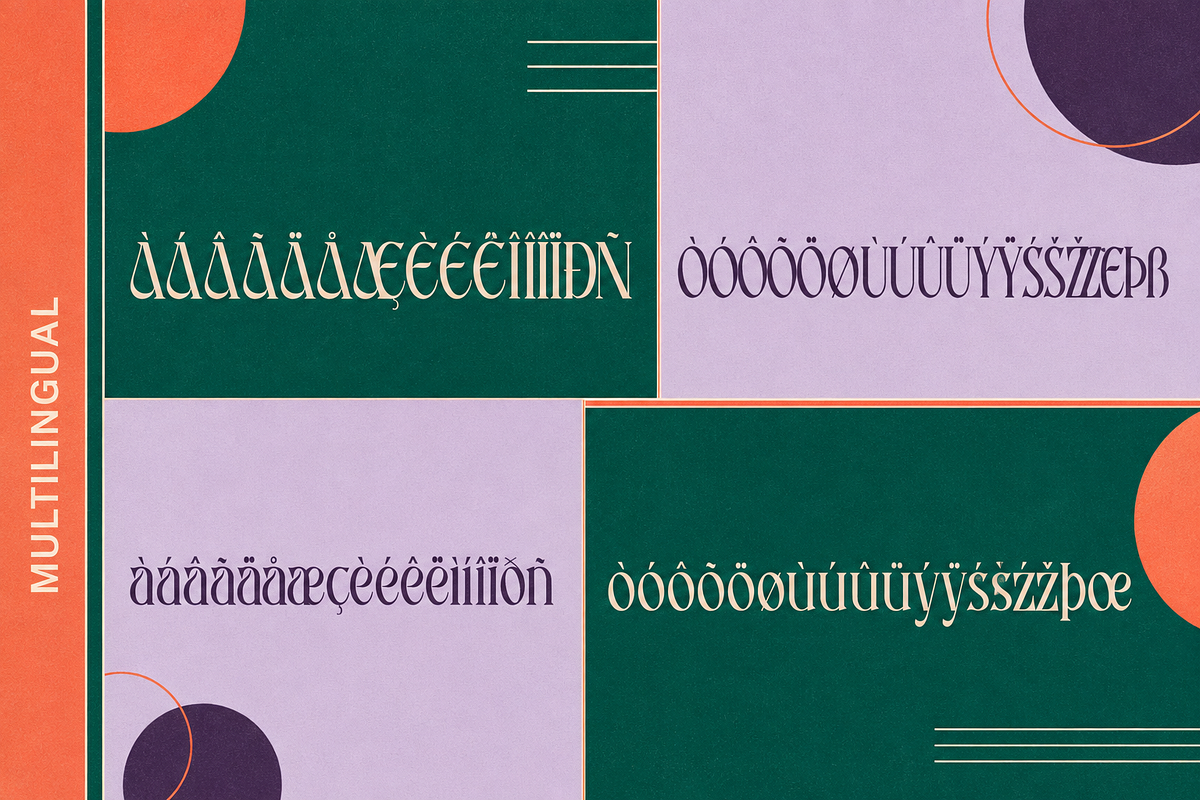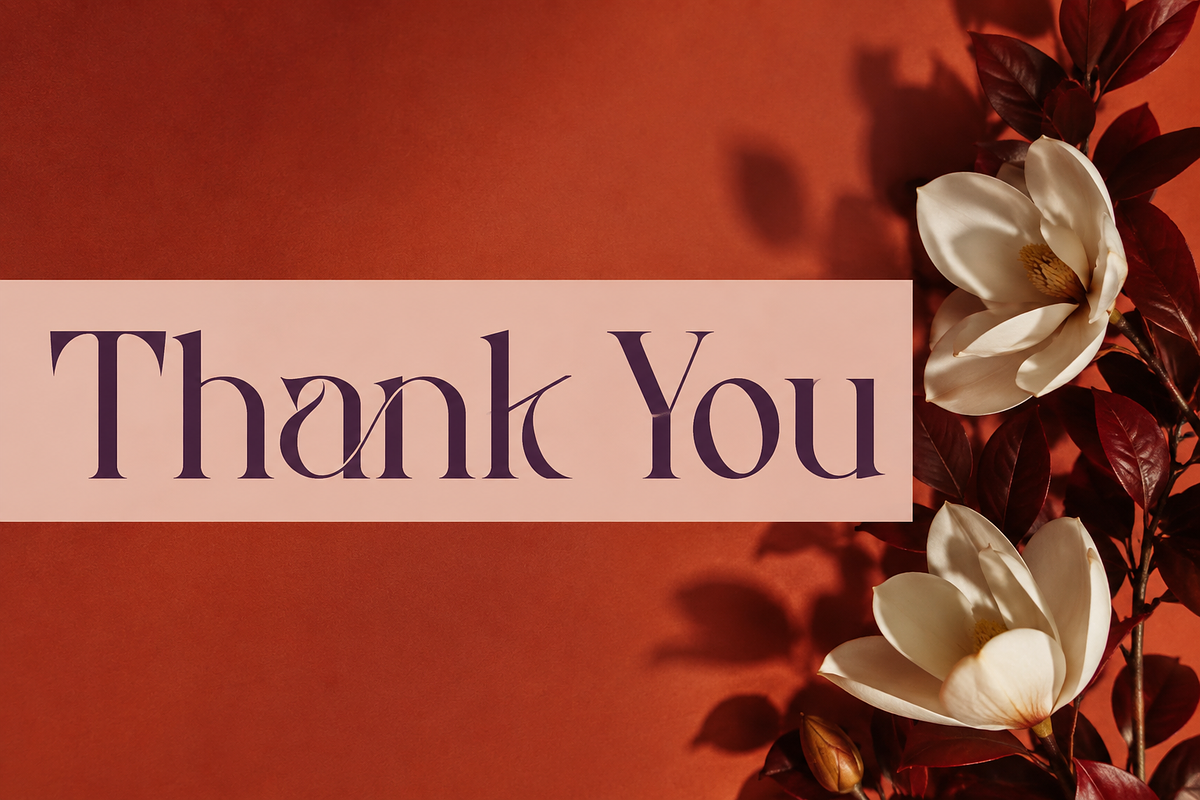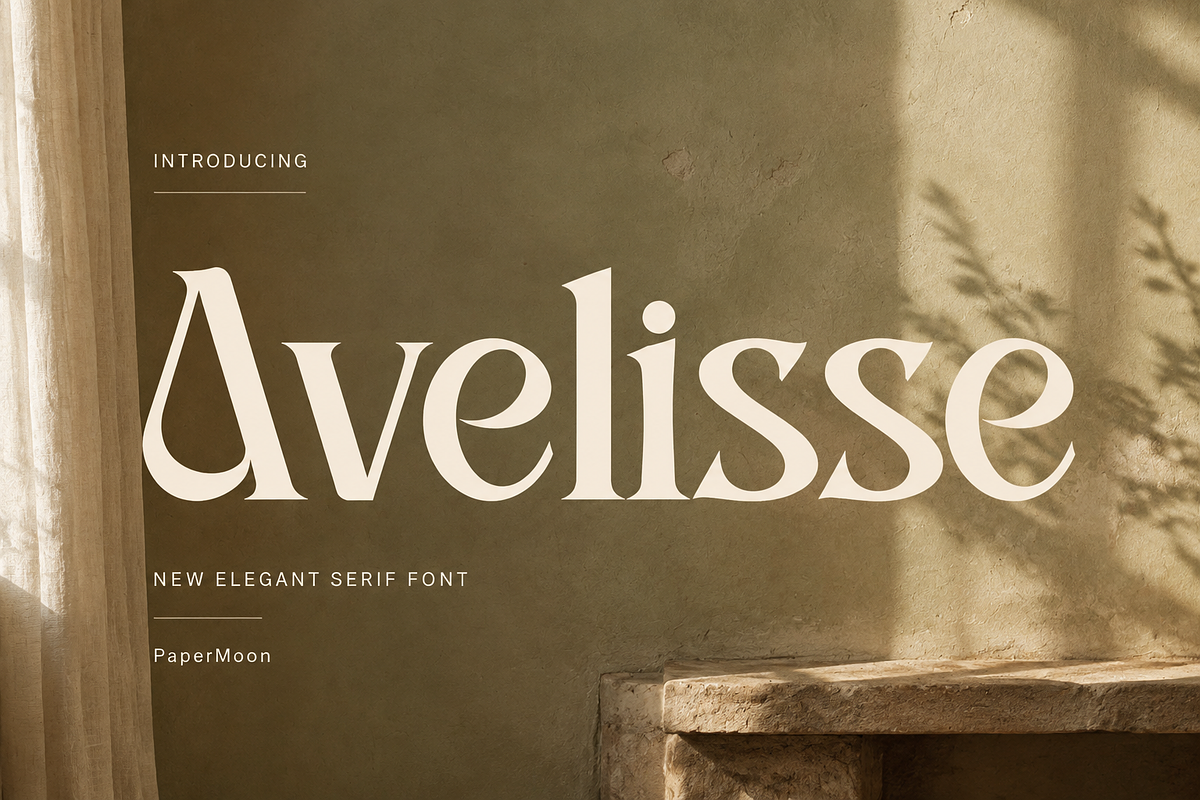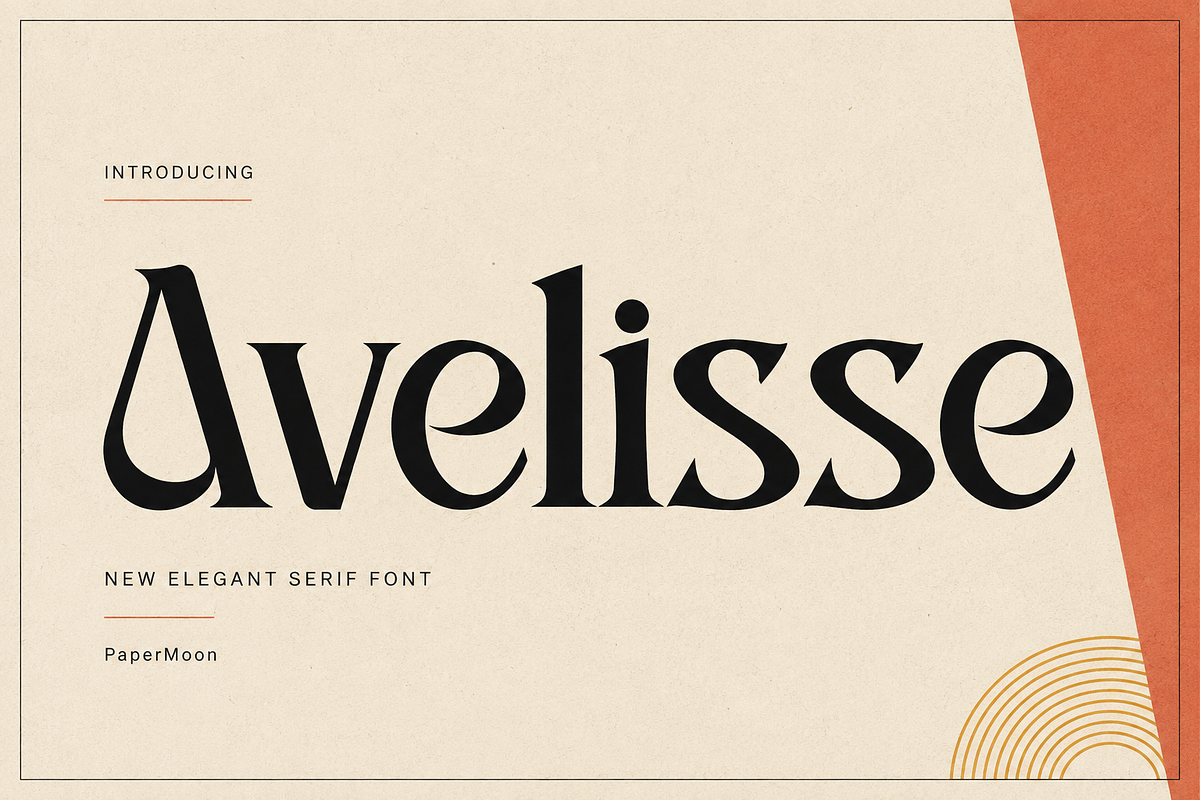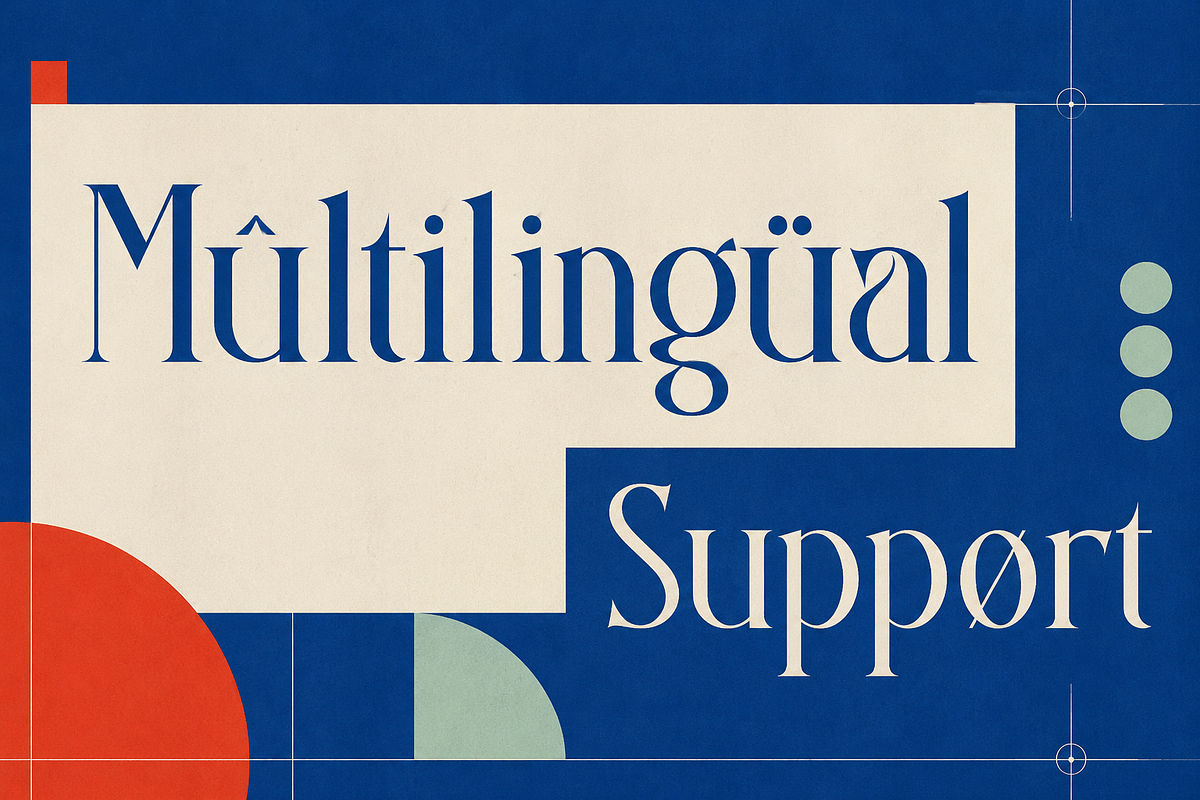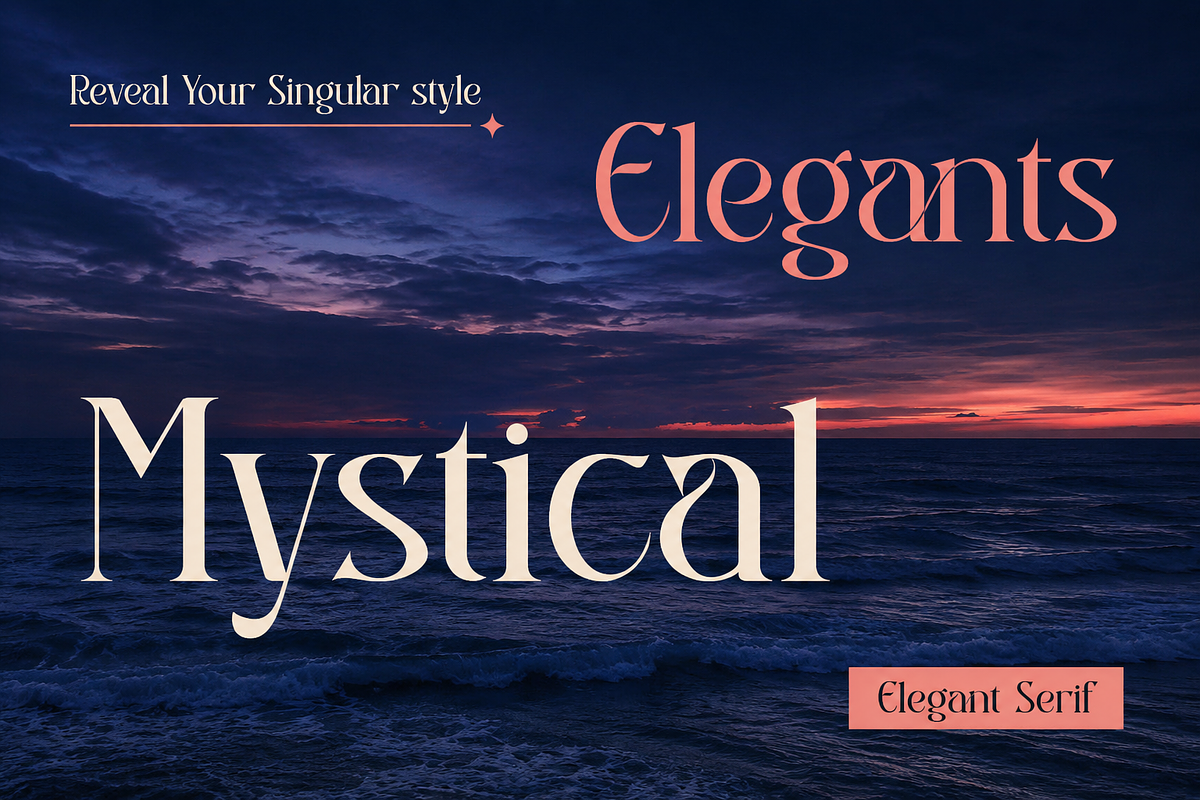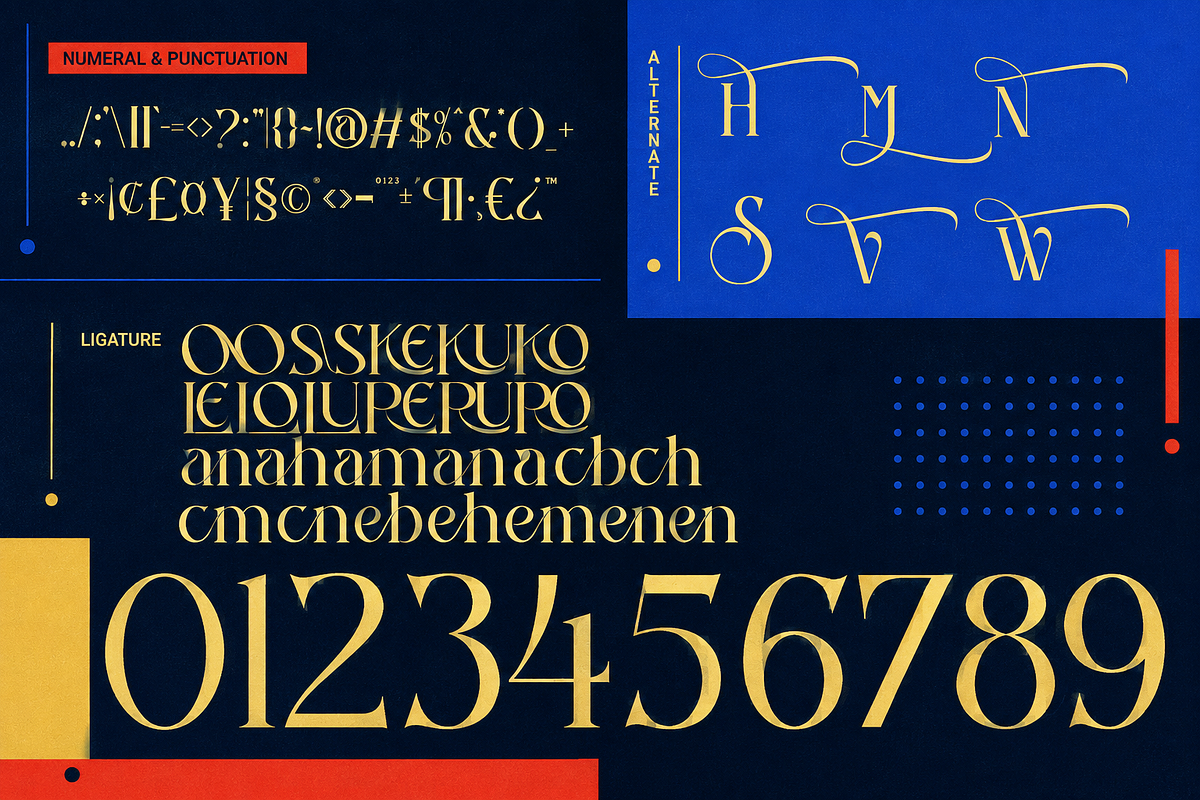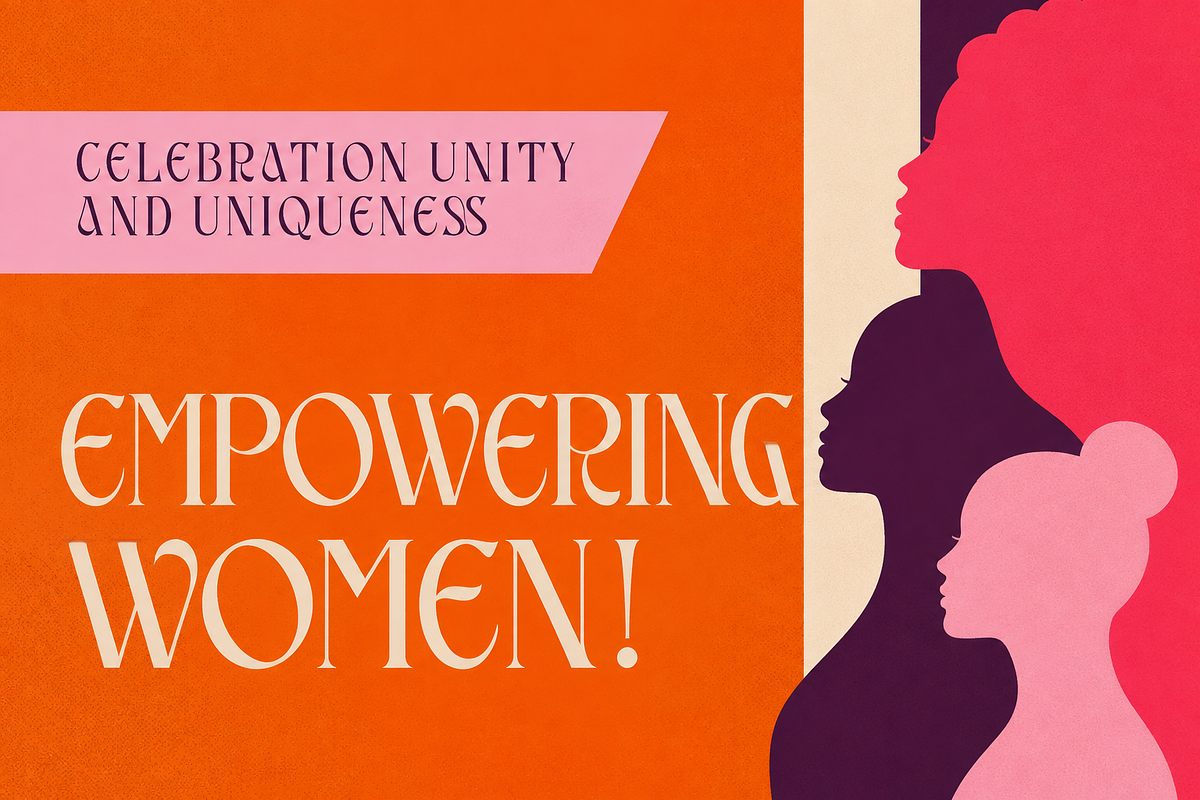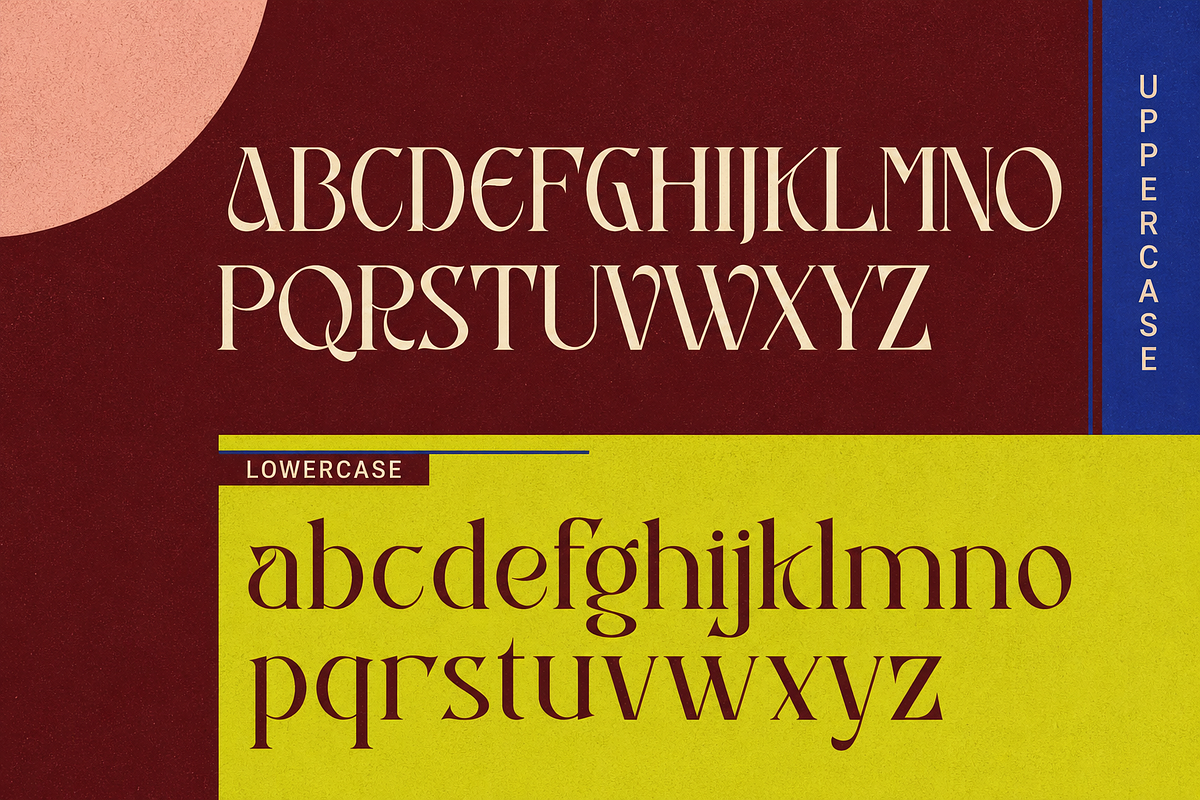
Avelisse - Modern Luxury Serif Font
This modern luxury serif pairs clean, sharp serifs with graceful curves and a rich set of 23 custom ligatures and 6 stylistic alternates, so every headline, logo, and invitation comes out with a finished, high-end feel.
Custom ligatures: OO, SS, KE, KU, KO, LE, LO, LU, RU, RO, RE, and a full set of lowercase pairs (ab, ah, am, an, cb, ch, cm, cn, eb, eh, em, en) that clean up awkward letter joins automatically.
Stylistic alternates: Alternate forms for H, M, N, S, V, and W give you refined letter options for logos and display work.
Kerning baked in: GPOS kerning keeps pair spacing consistent across sizes, from fine print to poster scale.
Built for
Avelisse is made for high-end logo design and brand identities, fashion and beauty packaging, editorial design and magazine spreads, wedding invitations and event stationery, and luxury website headers and social media graphics. If the project needs to look refined, this is the typeface to build it on.